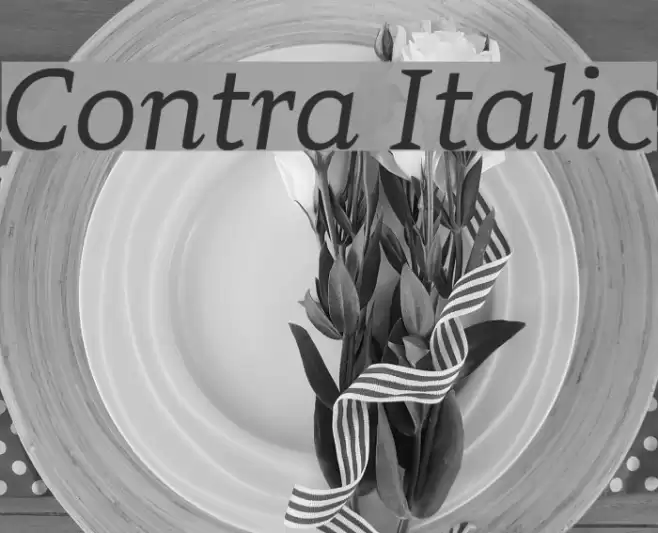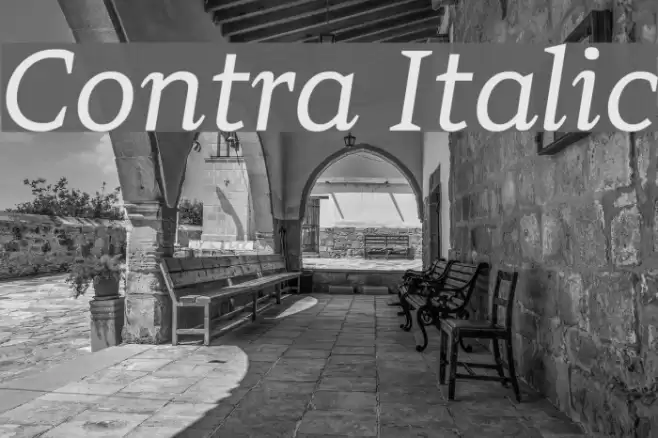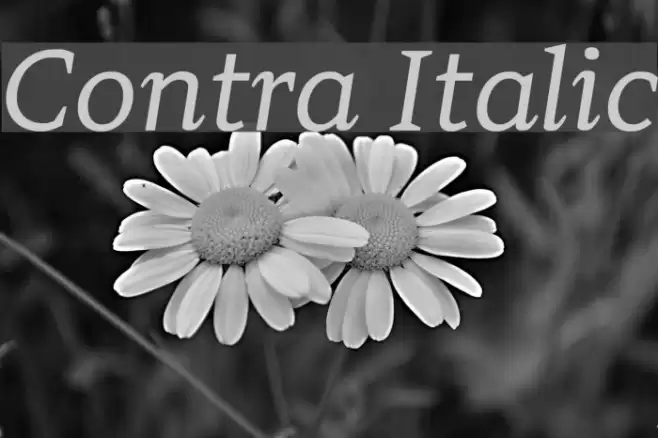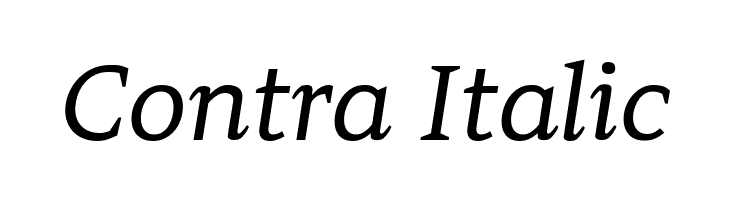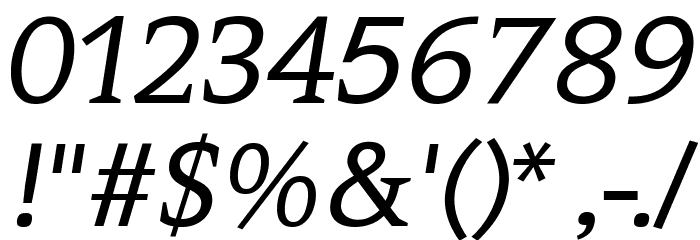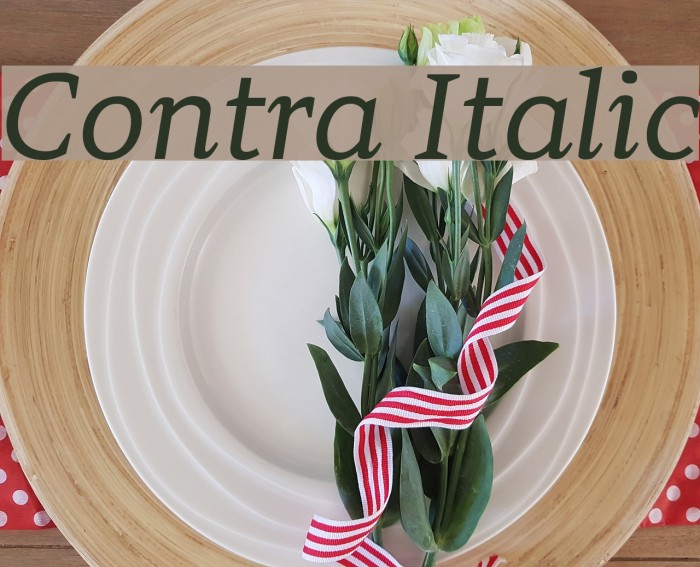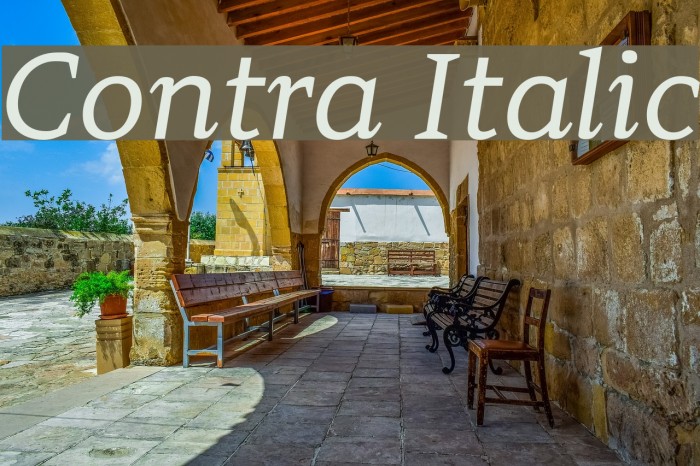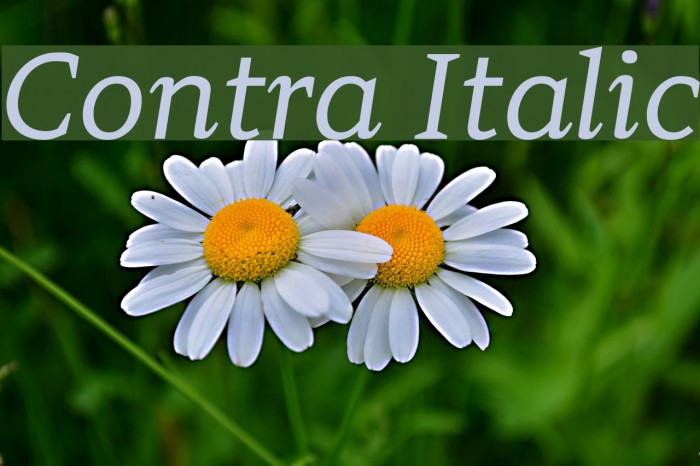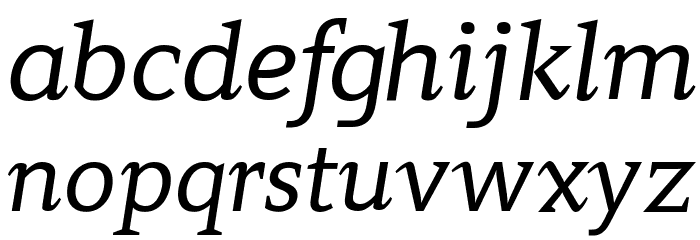
Contra Italic Font
Contra Italic Description
This font features a classic italic style with a modern twist, characterized by its elegant and flowing letterforms. The slanted design adds a dynamic and sophisticated touch, making it suitable for a variety of uses. The uppercase letters are bold and commanding, while the lowercase letters maintain a graceful and fluid appearance. The numerals are clear and distinct, ensuring readability. Special characters are well-integrated, maintaining the overall aesthetic of the font. The contrast in stroke thickness is medium, providing a balanced look that is neither too stark nor too subtle. This font's design is versatile, making it ideal for both digital and print media.
A modern italic font with elegant, flowing letterforms and medium contrast from Serif fonts.